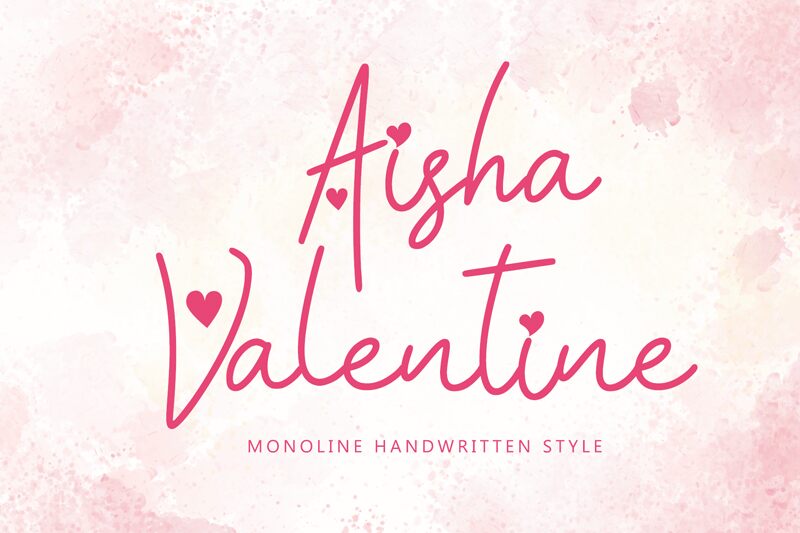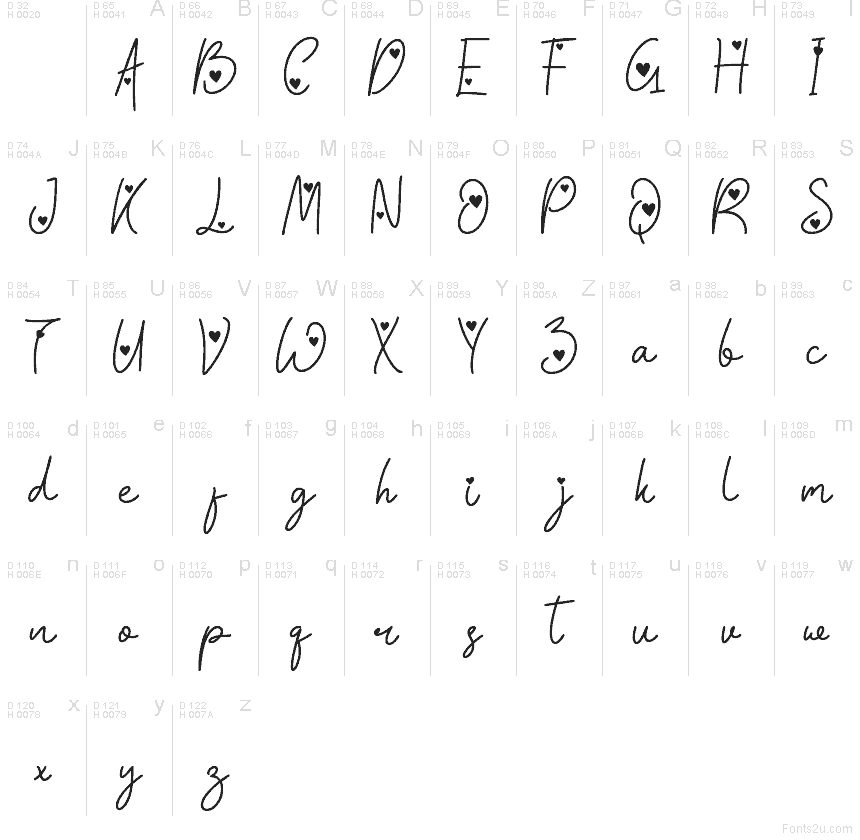
Aisha Valentine
Aisha Valentine font by Yoga Letter is a free holiday handwritten typeface that captures the fluttery feeling of a handwritten love note. Its thin, slightly bouncy strokes and playful heart details feel light, personal, and a little bit shy—in the sweetest way. The letters connect with an easy flow, giving your layouts a relaxed, intimate rhythm that looks like it was written in one smooth motion.
Using Aisha Valentine, this free font shines on Valentine’s cards, love coupons, romantic invitations, gift tags, social media quotes, and cute boutique branding. It works beautifully at medium to large sizes where the delicate lines and heart touches can breathe. Pair Aisha Valentine with a clean sans serif for body text to keep your message readable while the script handles all the charm and emotion.